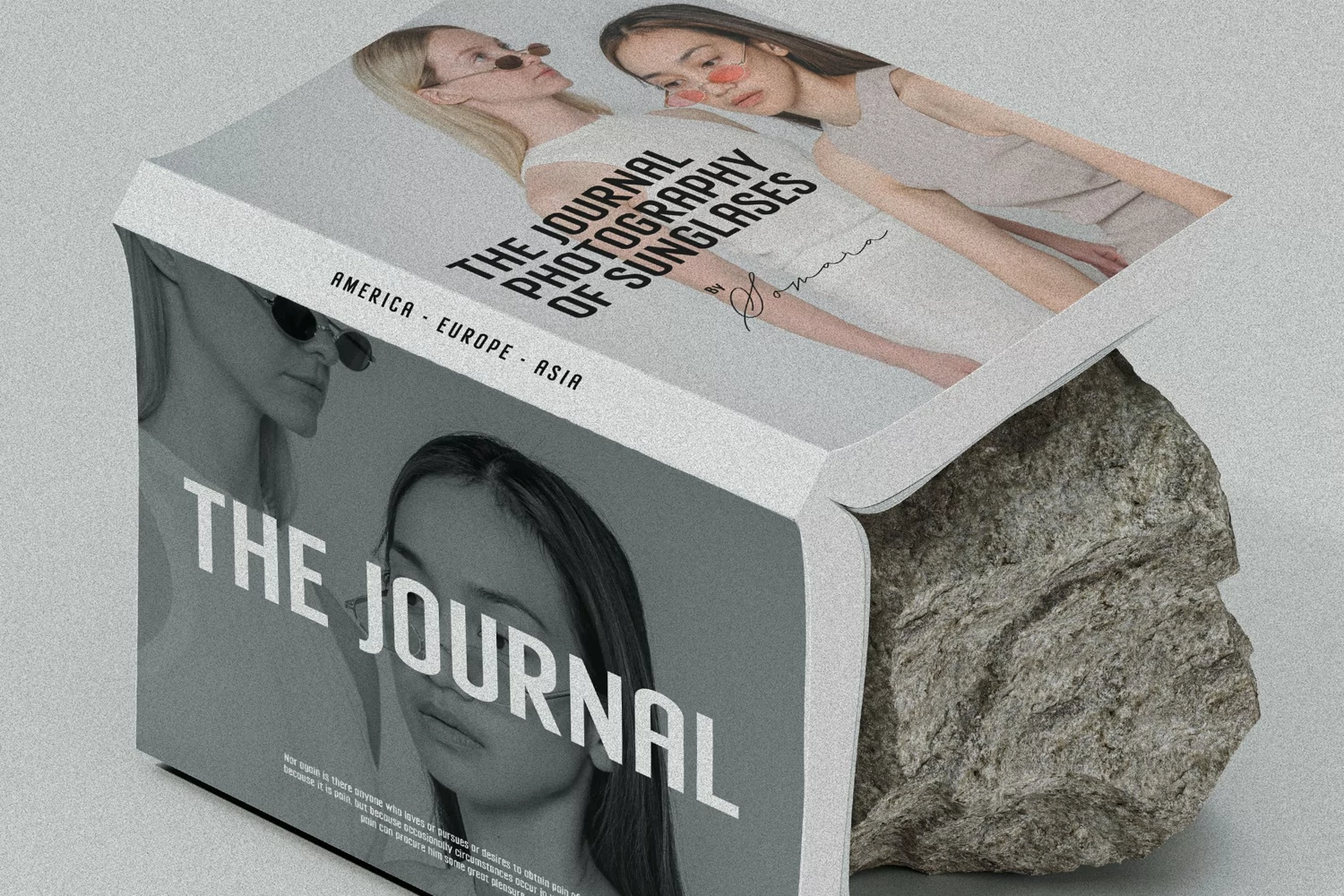
Morgane - a Classic Retro Sans Serif - Bold Condensed Display Font
Suitable for any design needs : logo, branding, modern advertising design, vintage garage design, retro design, adventure / mountain hiking apparel, Music and movie, poster quote, book / cover Title, magazine editorial design, website / blog, card, custom mug, pillow, t-shirts, and any needs.